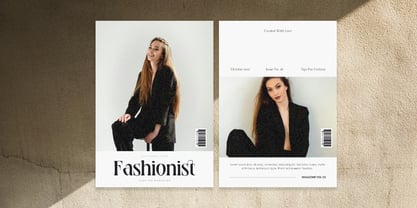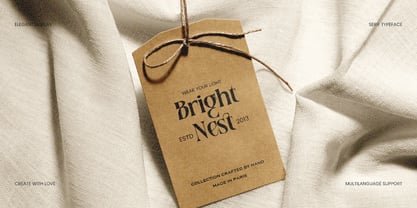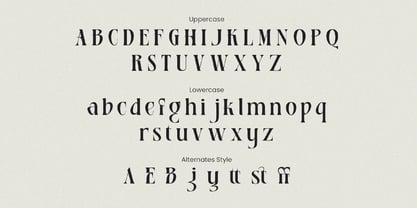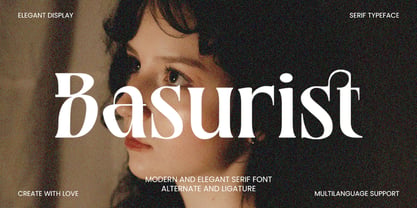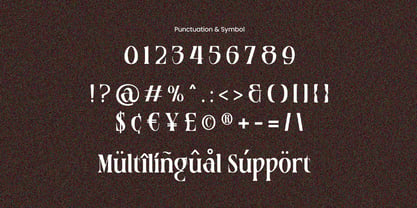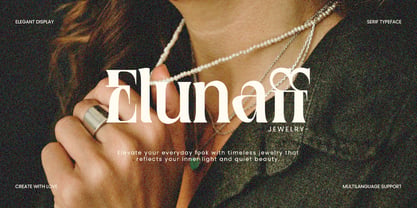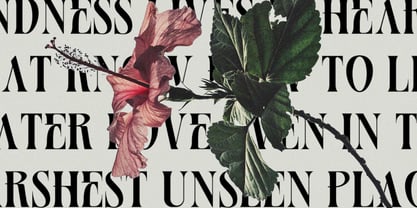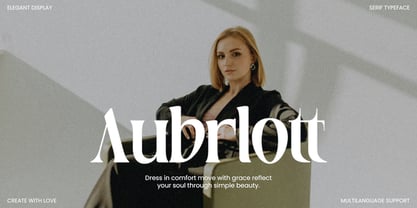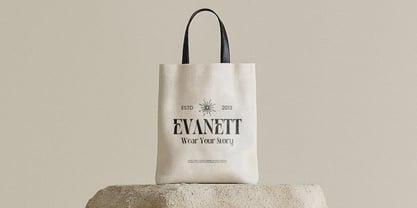
Basurist Font
The Basurist Font Font Family was designed by Aulia Rakhman and published by Nokturnal13. Basurist Font contains 1 styles. More about this family
Basurist: Unique Modern Serif Font Meet Basurist, a distinct modern serif font designed to give your projects an elegant yet bold flair. It blends classic serif charm with a fresh, contemporary twist, making your designs truly unforgettable.
Why Basurist?
Unique Style : Basurist stands out with its intricate letterforms and unique proportions, offering a fresh, modern aesthetic unlike any other serif.
Versatile : Perfect for branding, editorials, packaging, headlines, and more.
Highly Readable: Clear letterforms and balanced spacing ensure excellent readability, even at smaller sizes.
Full Feature Set : Includes uppercase, lowercase, numbers, punctuation, and multi-language support.